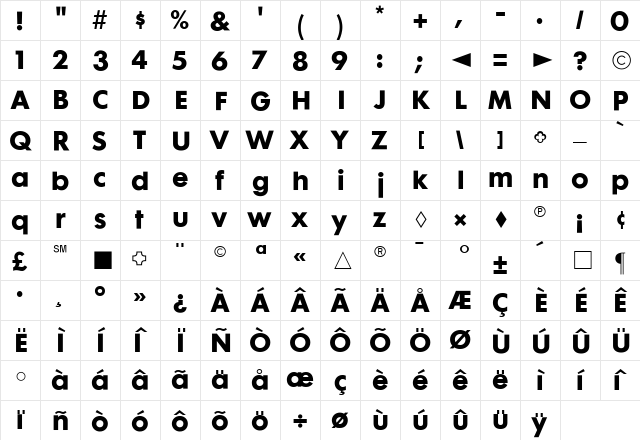
CgFuturaMaxiBd Medium
Design Context for CgFuturaMaxiBd Typeface
CgFuturaMaxiBd channels digital-age aesthetics through its sharp, structured letterforms — ideal for brands that want to signal innovation.
Pro Tip: Try CgFuturaMaxiBd with generous letter-spacing in UI labels and navigation — the geometric forms benefit from room to breathe.